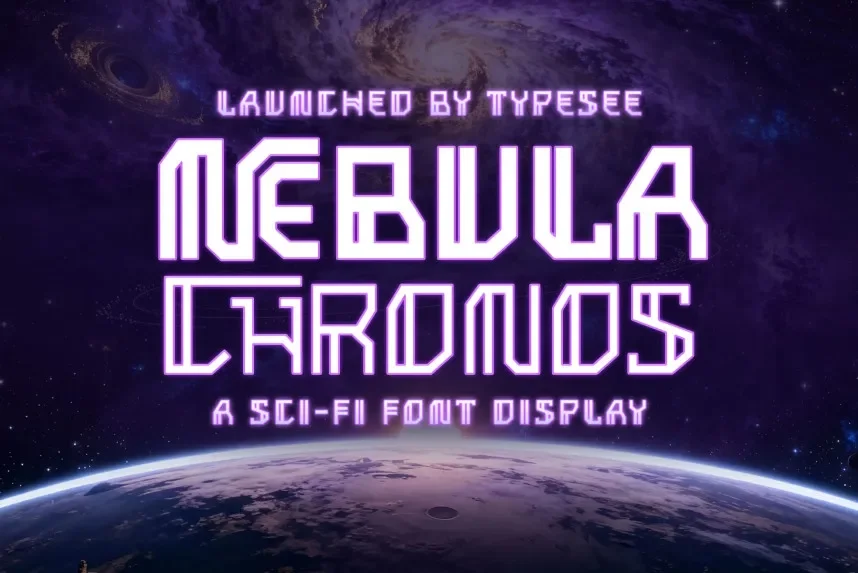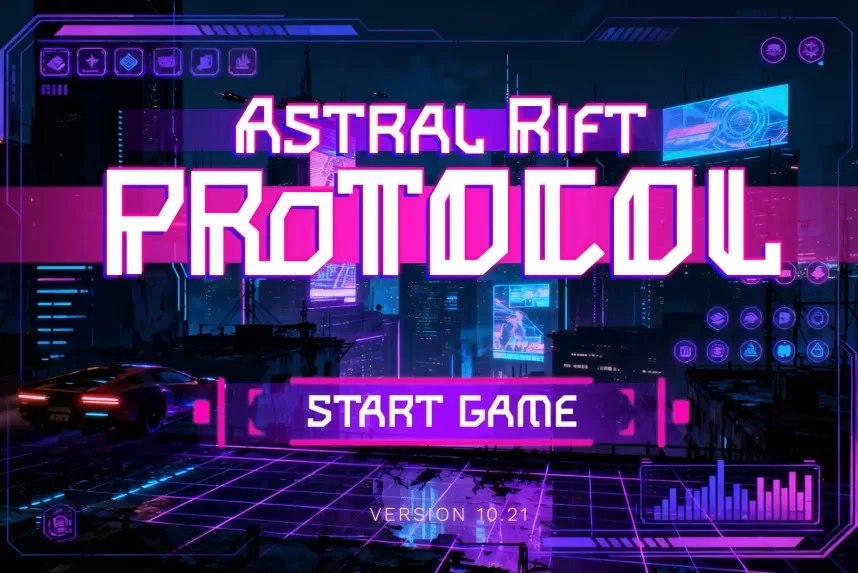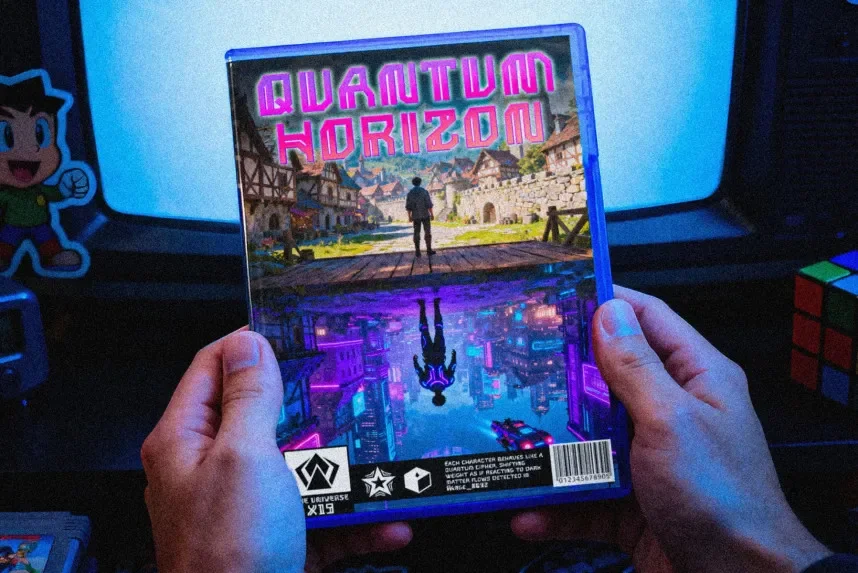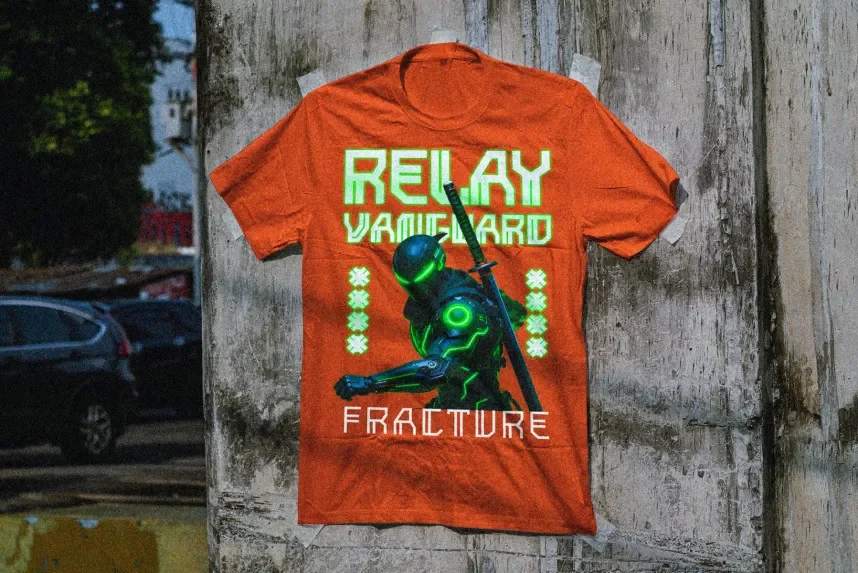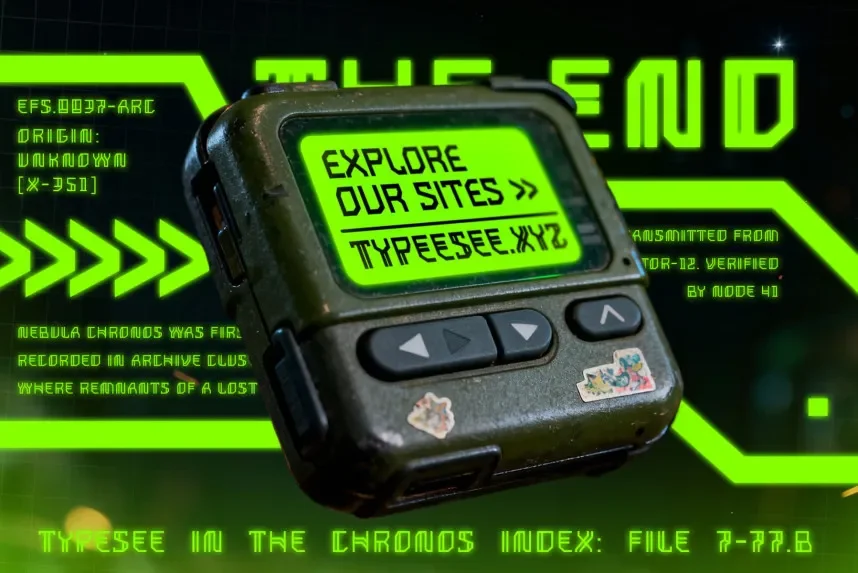
Nebula Chronos Font helps designers working on technology-focused branding that requires structured, futuristic typography. Many sci-fi fonts reduce clarity at small sizes.
Nebula Chronos Font is a display typeface with sharp angles, geometric forms, and consistent stroke weight. The letterforms reflect sci-fi and space-inspired design while staying readable in headlines.